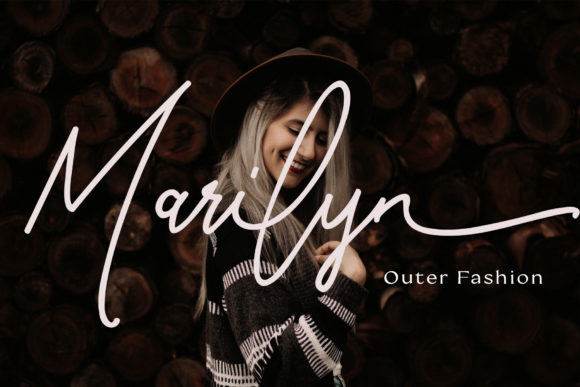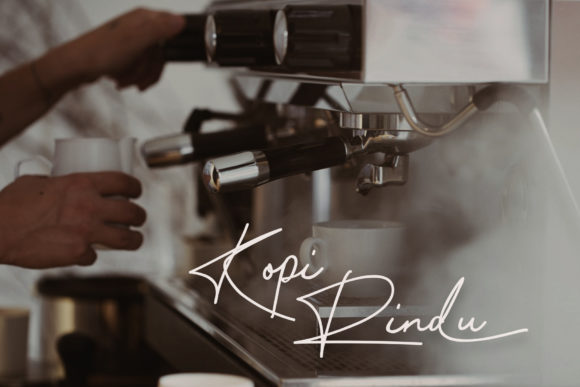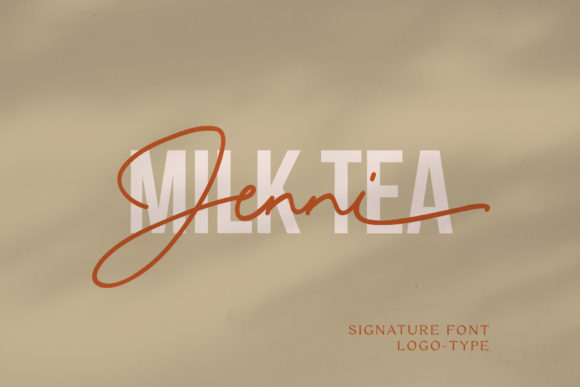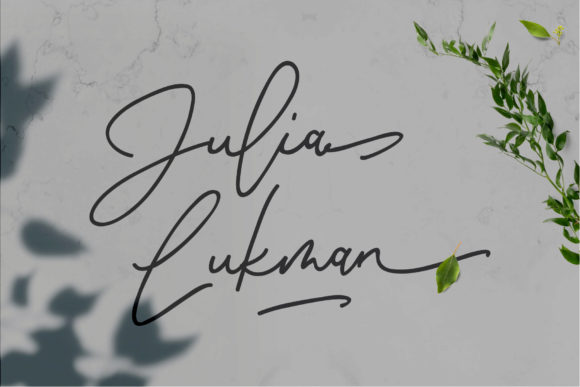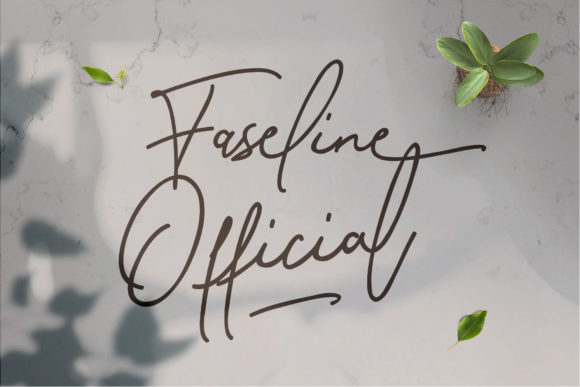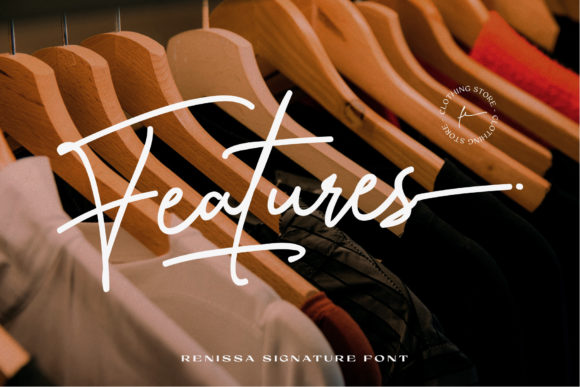
Introduction to Renissa Font
Renissa is a modern handwritten font that feels beautiful, classy, elegant, and unique.
It is perfectly suited for a wide variety of projects, such as signature, stationery, logo, wedding, typography quotes, magazine or book covers, website headers, clothing, branding, packaging designs and much more .
Key Features of Renissa Font
Why Choose Renissa Font?
Renissa Font offers exceptional quality and versatility, making it a valuable addition to your design toolkit. Whether you’re creating for personal projects or commercial use, Renissa Font delivers professional results.